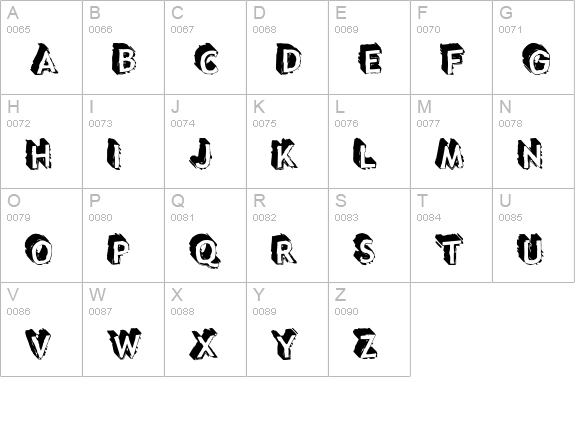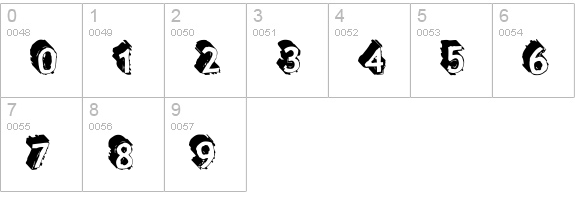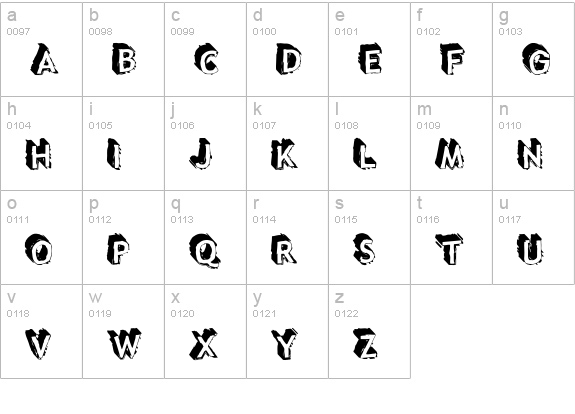
Taco Truck Militia Font Details
Introducing Taco Truck Militia font - a bold and flavorful display typeface that will add a spicy touch to your designs. Inspired by the vibrant street food culture and the rebellious spirit of taco trucks, this font captures the essence of the urban food scene. Taco Truck Militia font is the perfect choice for those who crave a font with a punch of personality. Its dynamic and edgy design will make your headlines, logos, and posters stand out from the crowd. With its bold letterforms and unique character shapes, this font is a true feast for the eyes. But what makes Taco Truck Militia font even more exciting is that it is free! Yes, you read that right - this font is freely available to download at FontsMarket.com. Now you can enjoy the mouthwatering appeal of Taco Truck Militia font without breaking the bank. Whether you're a professional designer or a passionate foodie looking to add some zest to your projects, Taco Truck Militia font will not disappoint. Its versatility makes it suitable for a wide range of applications, from restaurant menus to food blogs, from event invitations to food packaging. So, don't miss out on the chance to bring the bold and delicious flavors of Taco Truck Militia font into your designs. Download it for free at FontsMarket.com and let your creativity run wild. It's time to spice up your typography game with this delectable typeface.